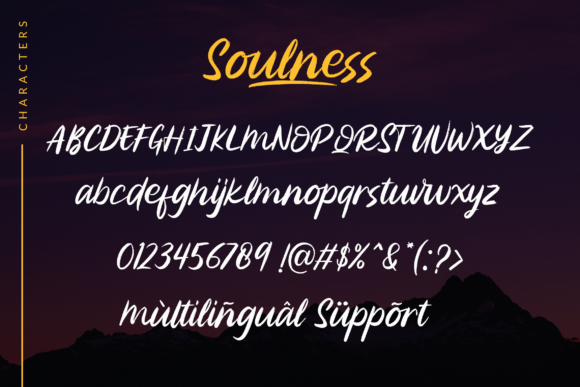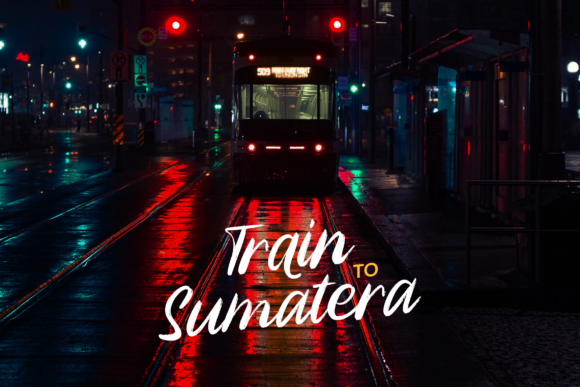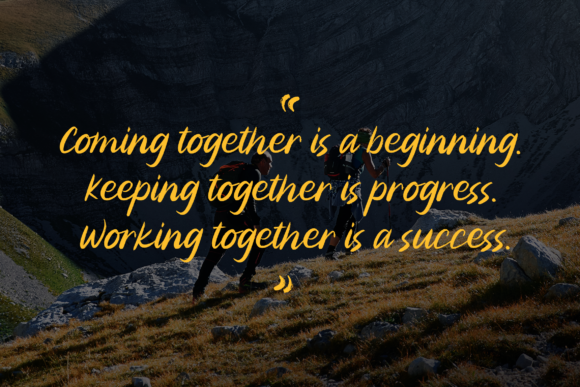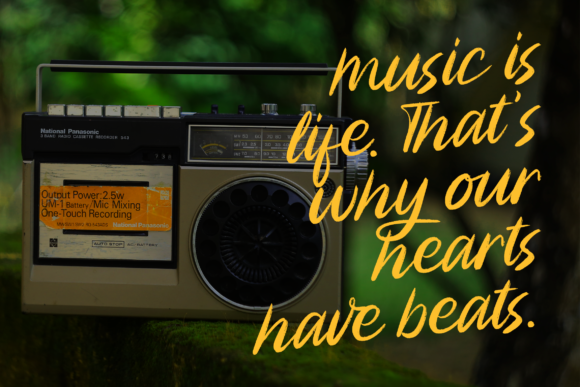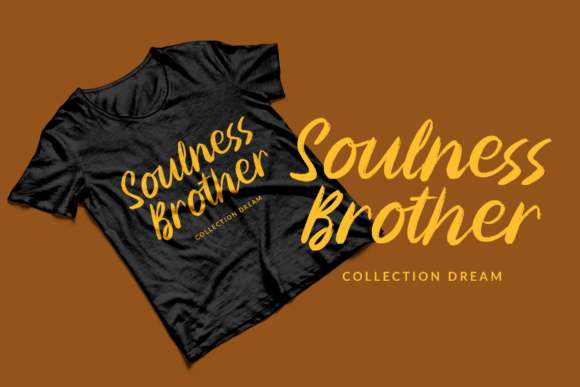
Soulness Font
About Soulness Font
Soulness is a lovely brushed handwritten font. it works incredibly well on urban designs or nearly any casual idea that requires a bold yet versatile touch. Add it confidently to your projects, and you will love the results.